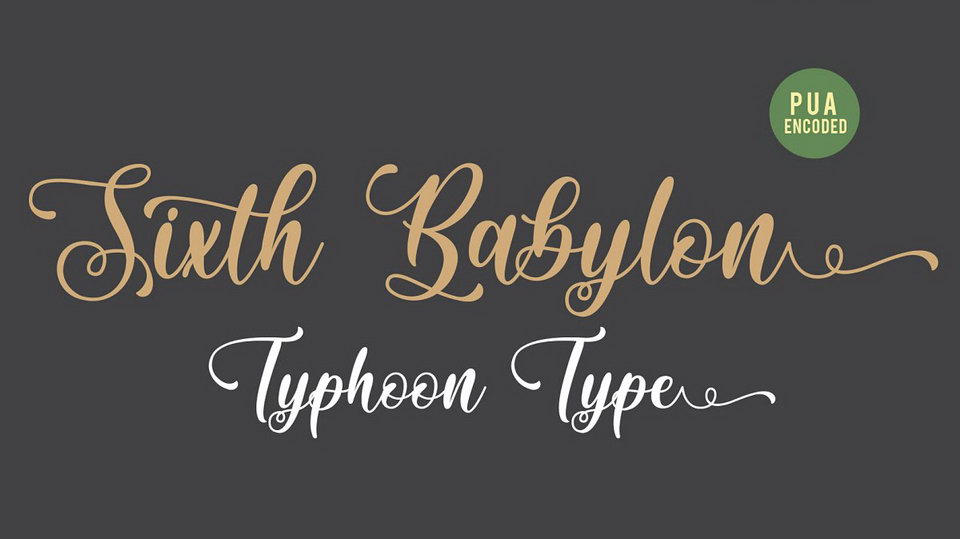
Download Sixth Babylon font,a stunnig modern calligraphy script, perfect for logos, name tag, advertising, product packaging, clothing, social media & greeting cards.